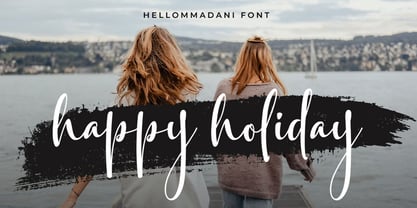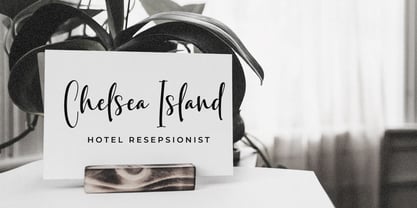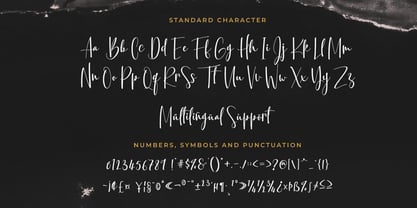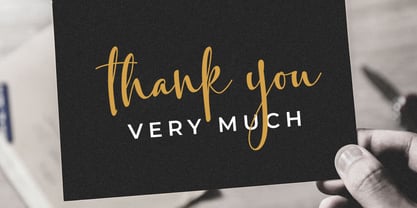
Hellomadani
by IanMikraz Studio
The Hellomadani Font Family was designed by Ian Mikraz and published by IanMikraz Studio. Hellomadani contains 1 styles.
Experience the artistry of personal expression with Hellomadani, a modern signature script that transcends conventional boundaries. This unique typeface seamlessly combines the timeless elegance of a handwritten signature with a contemporary twist, creating a harmonious blend of tradition and innovation.
Hellomadani isn't just a font; it's a statement, adding a touch of personalized sophistication to every stroke.
Ideal for branding, invitations, and creative projects, Hellomadani introduces a level of authenticity that resonates with today's dynamic aesthetic.
Its fluid lines and distinctive characters create a signature style that is as versatile as it is memorable. Elevate your designs with Hellomadani, where the art of the signature meets the modern world.